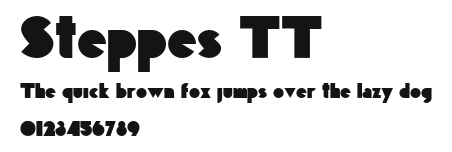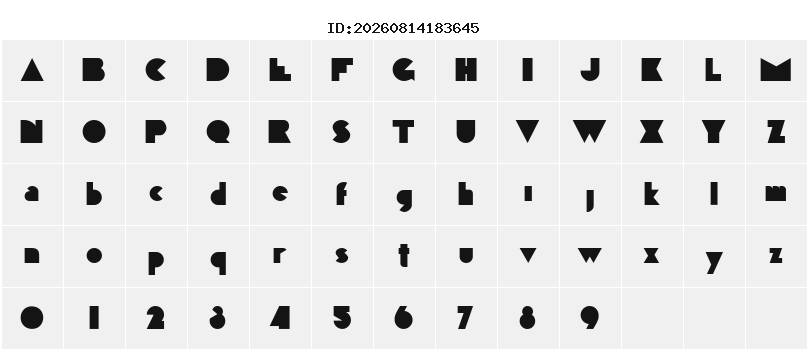
• Font Name: Steppes TT
Steppes TT.ttf is a modern, elegant sans-serif font designed for ultimate readability and visual harmony. Perfect for branding, headlines, web design, and print materials.